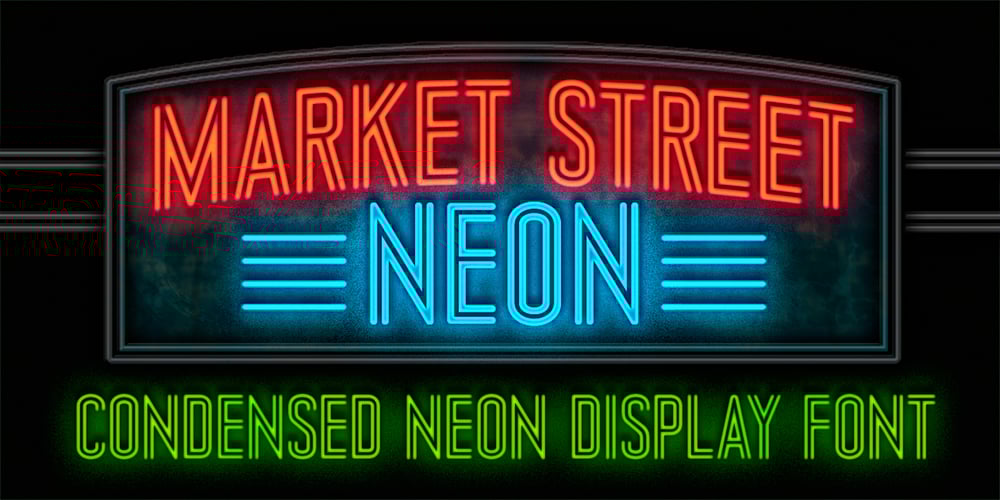
Market Street Neon
Market Street Neon font
Market Street Neon Font Family was designed by Lori LeBeau-Walsh and published by LLW Studio. Market Street Neon contains 1 styles and family package options. Market Street Neon is an all-caps condensed display font constructed with two rounded-end strokes; the lowercase set is included as a repeat of the uppercase to make setting type just that little bit easier. I designed this font to be a little bit more “San Francisco” (hence the name of the font), with a contemporary and upscale feeling. It’s intended for use in larger sizes of type, upwards of 48 pt. Market Street Neon is perfect for a design that wants to imitate neon—use it in Photoshop, InDesign, Illustrator or Corel with color & blend effects, and its geometry also lends itself well to simple color for signage, packaging, posters etc. that will pop.